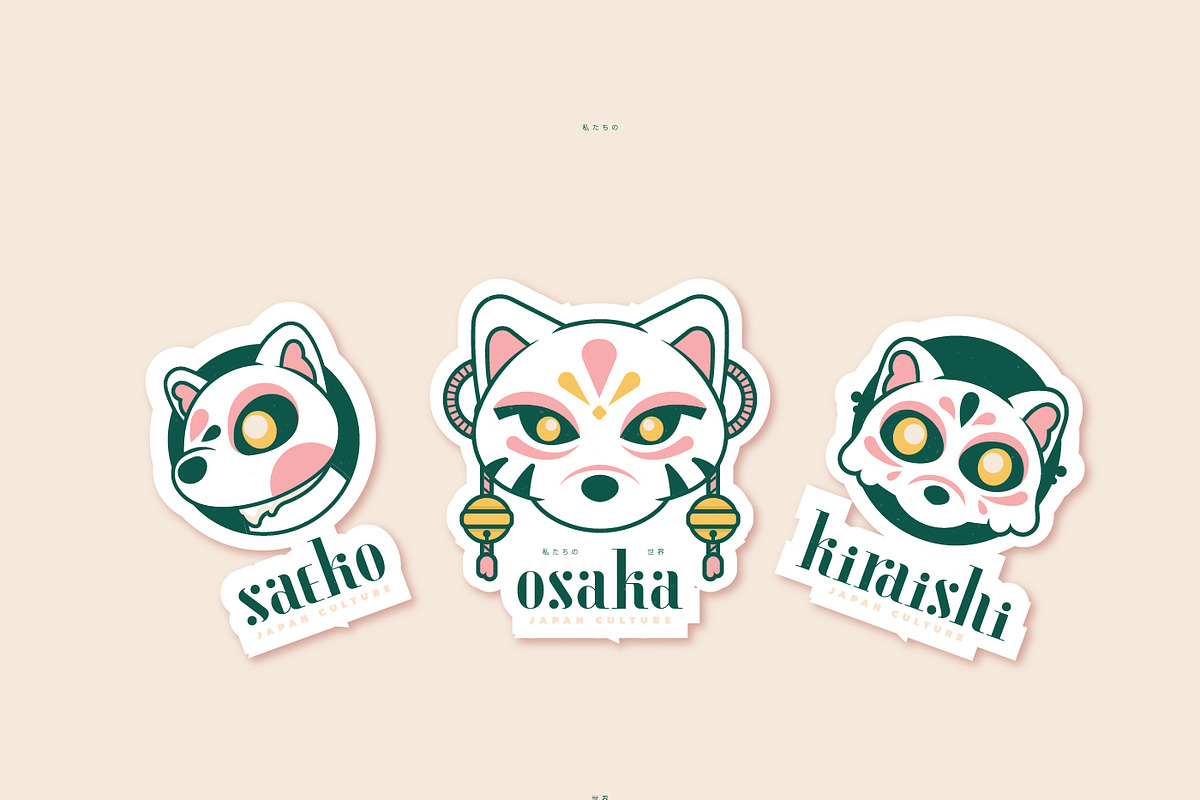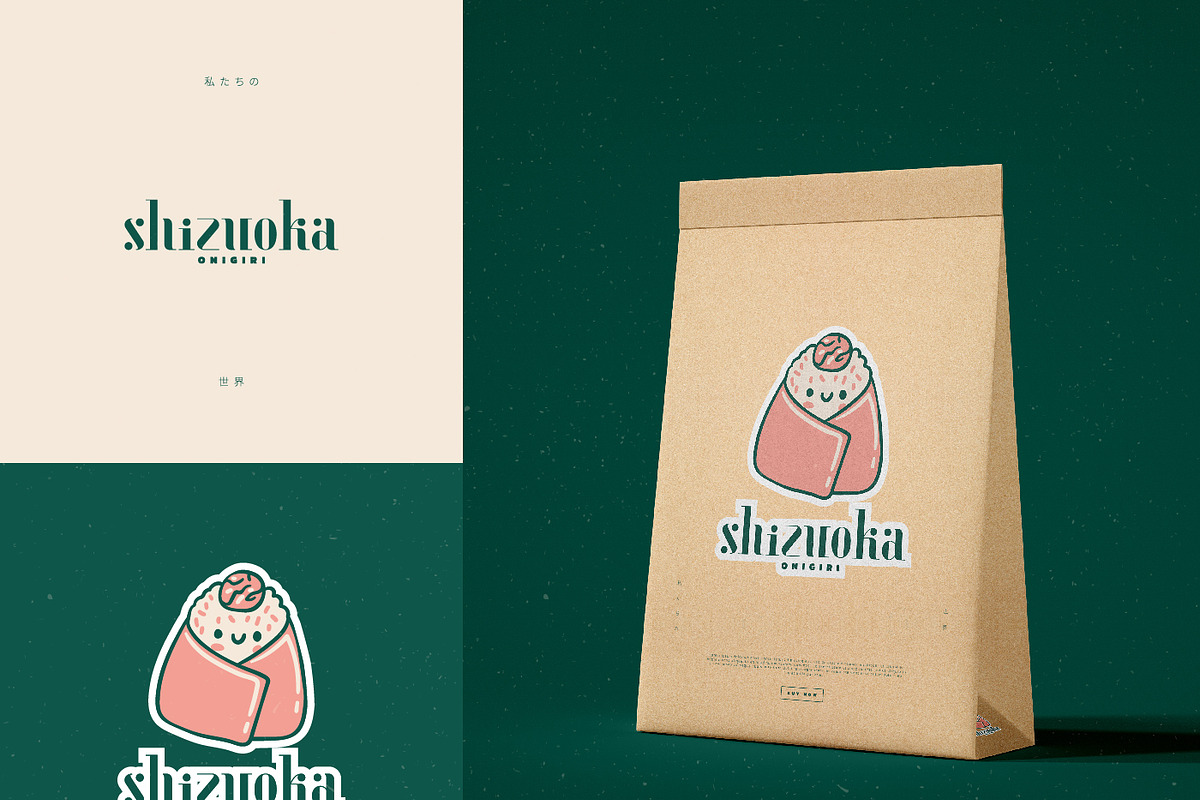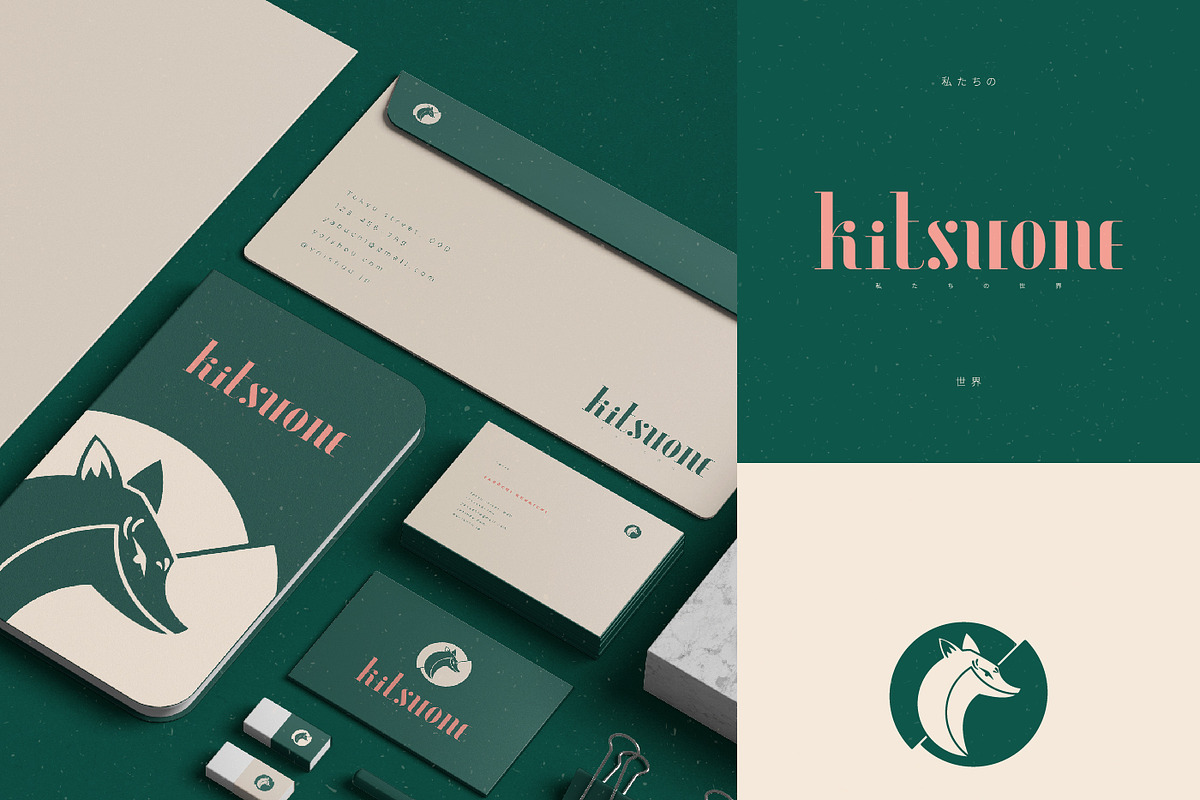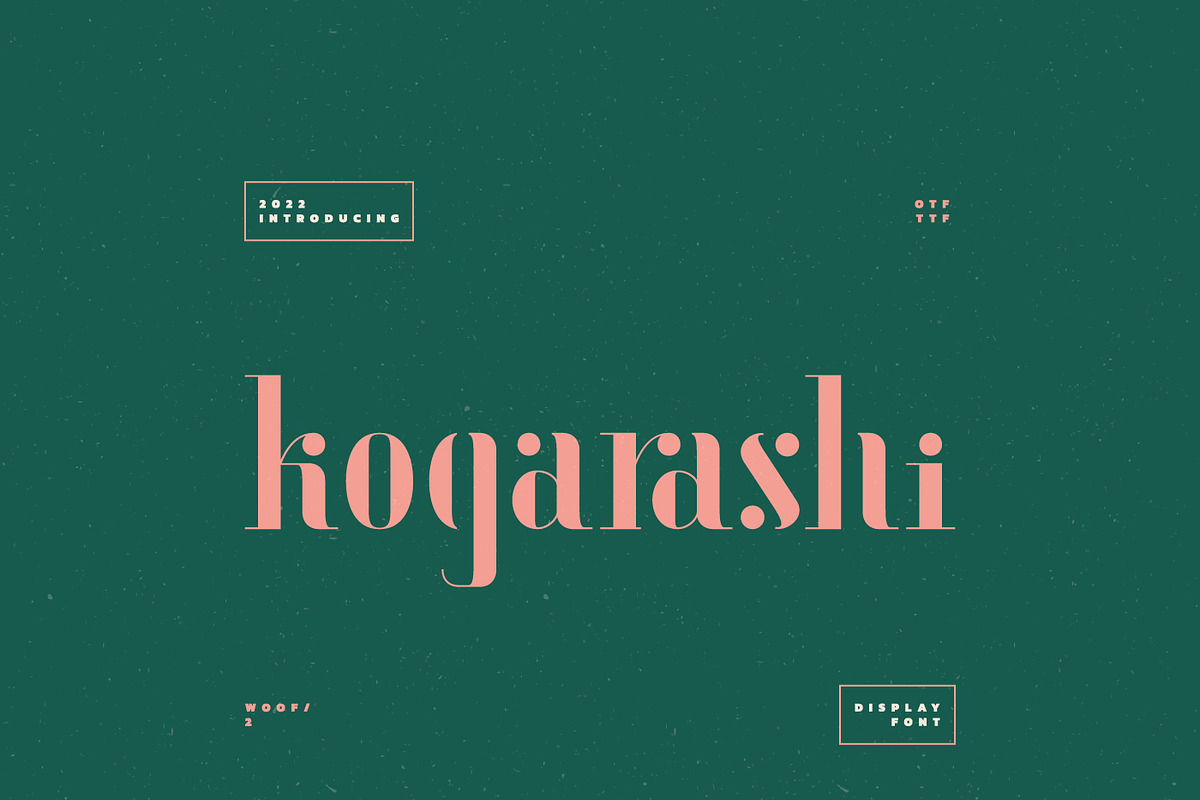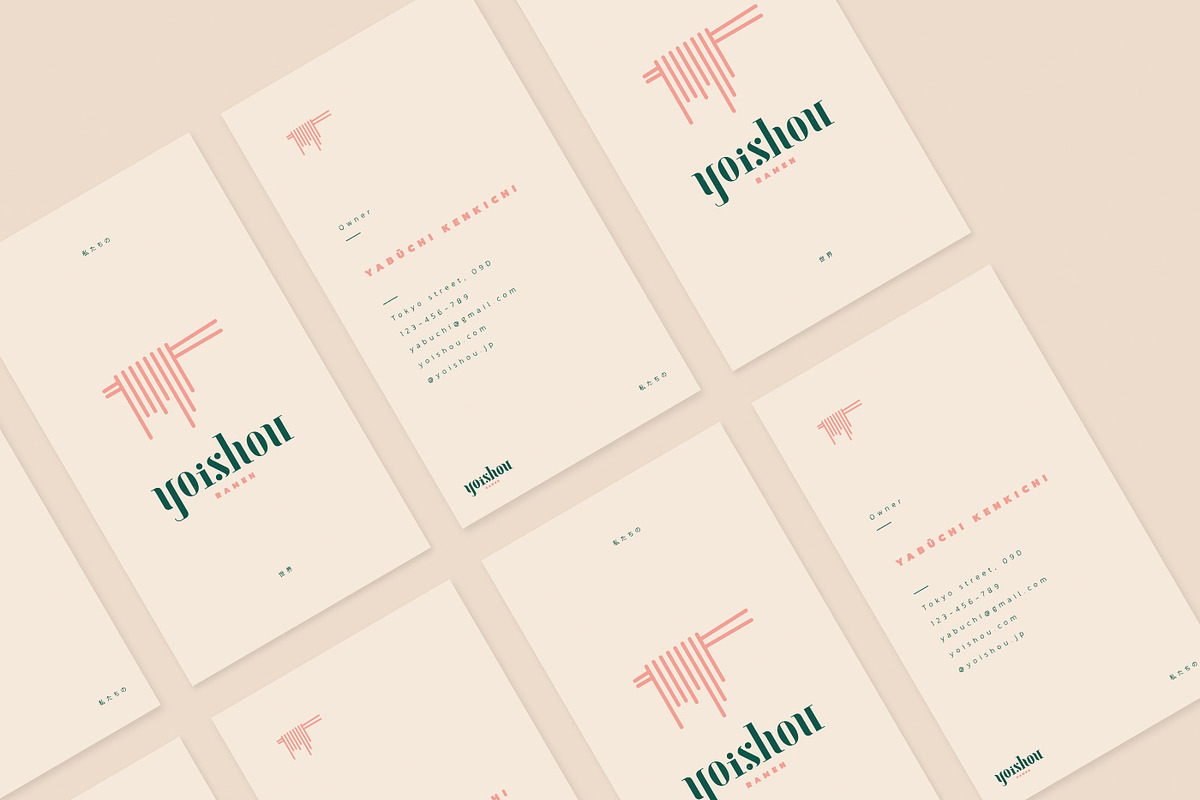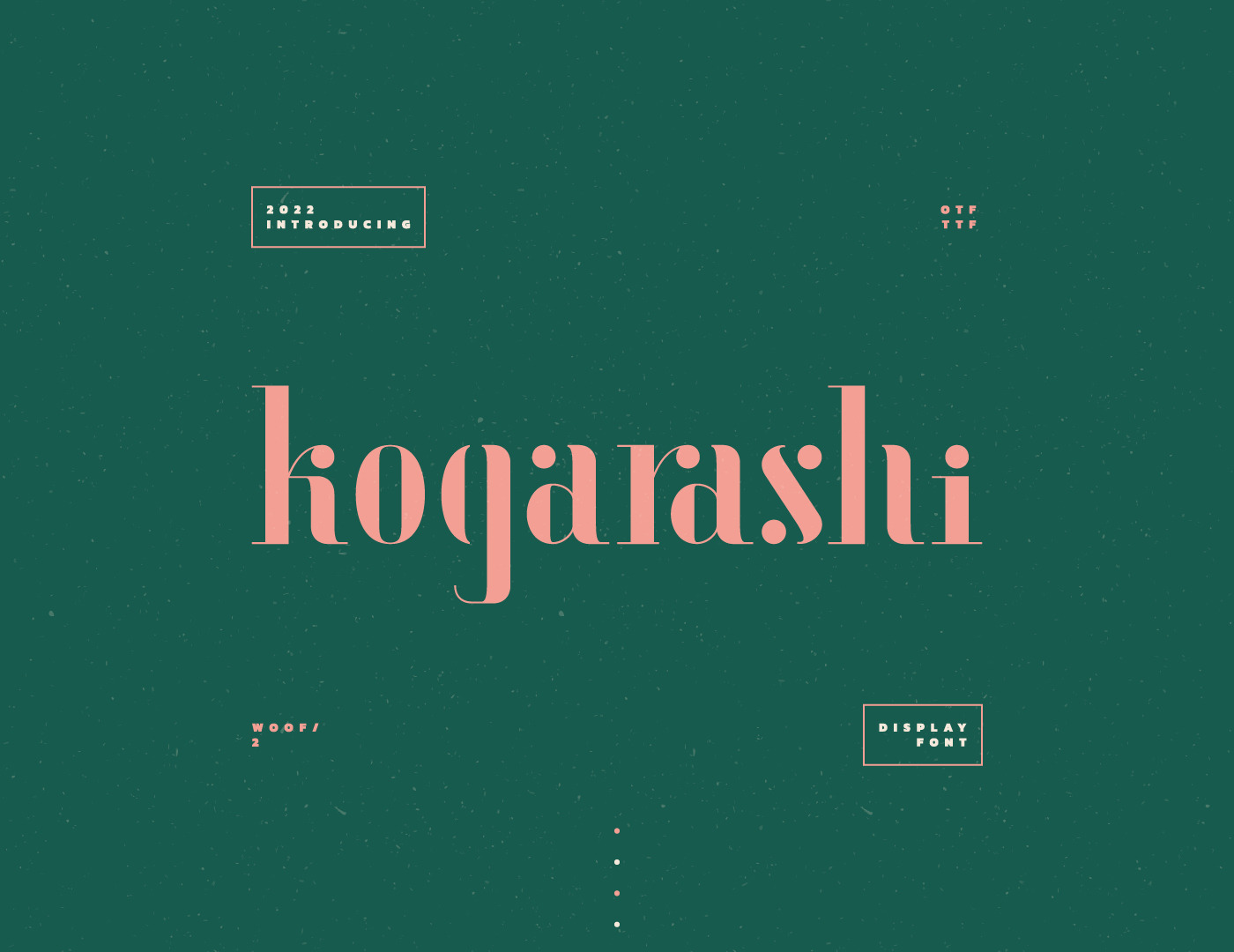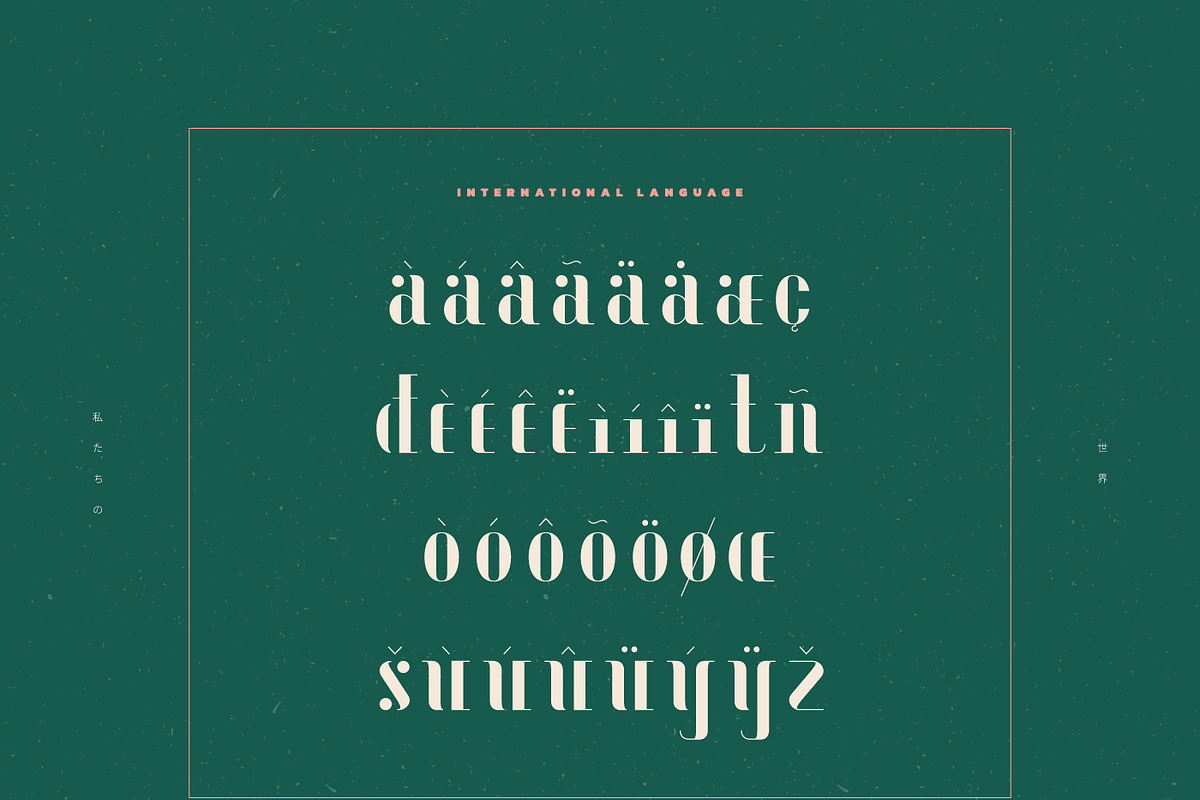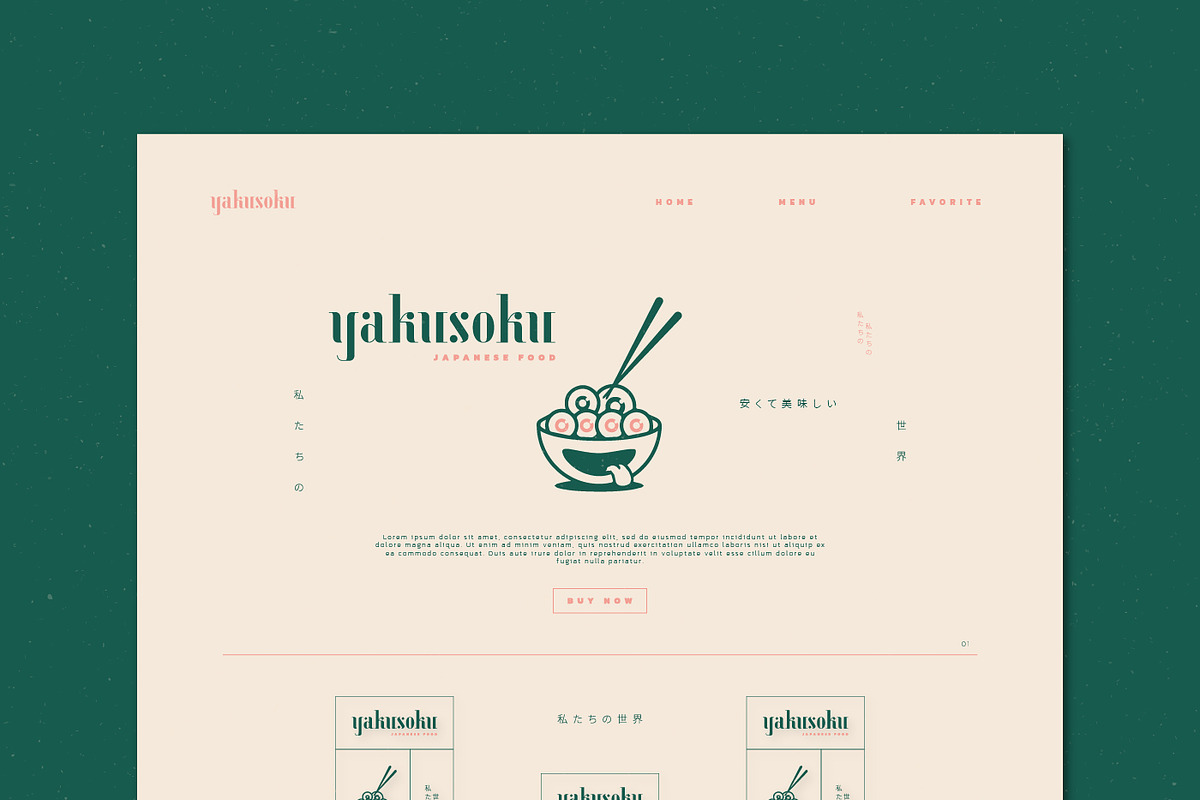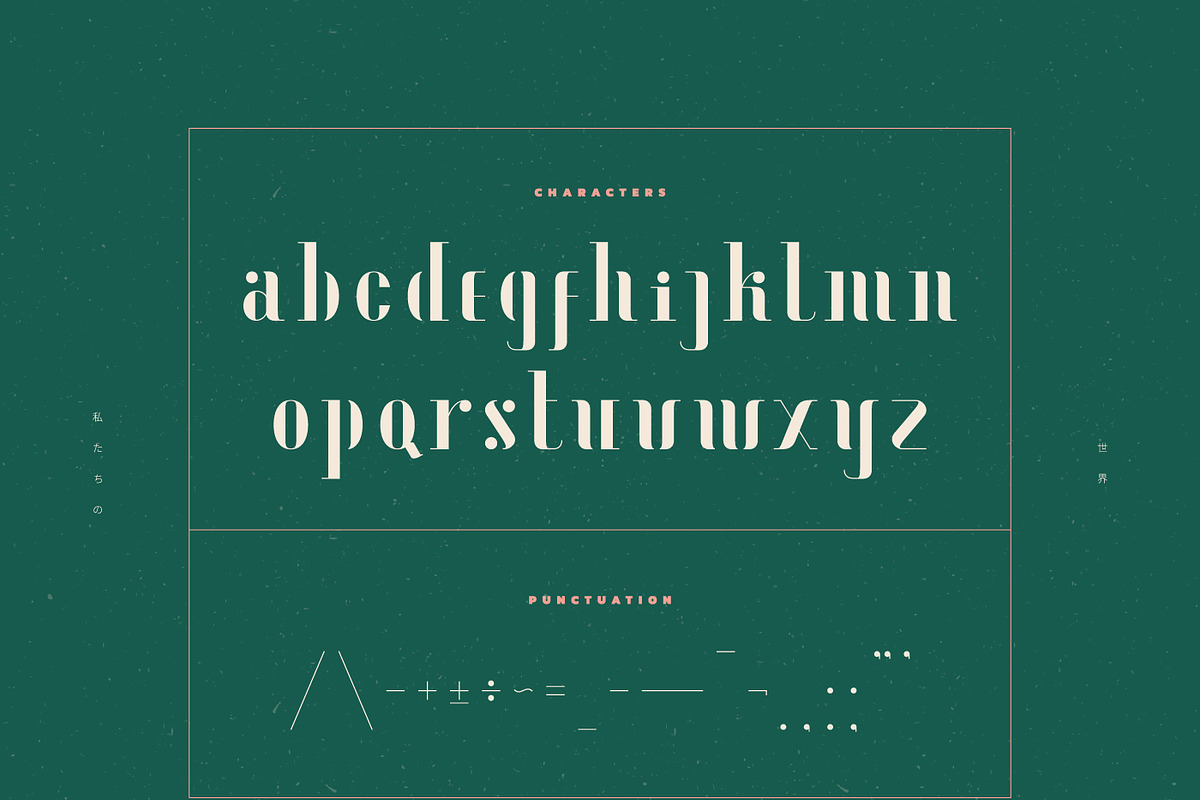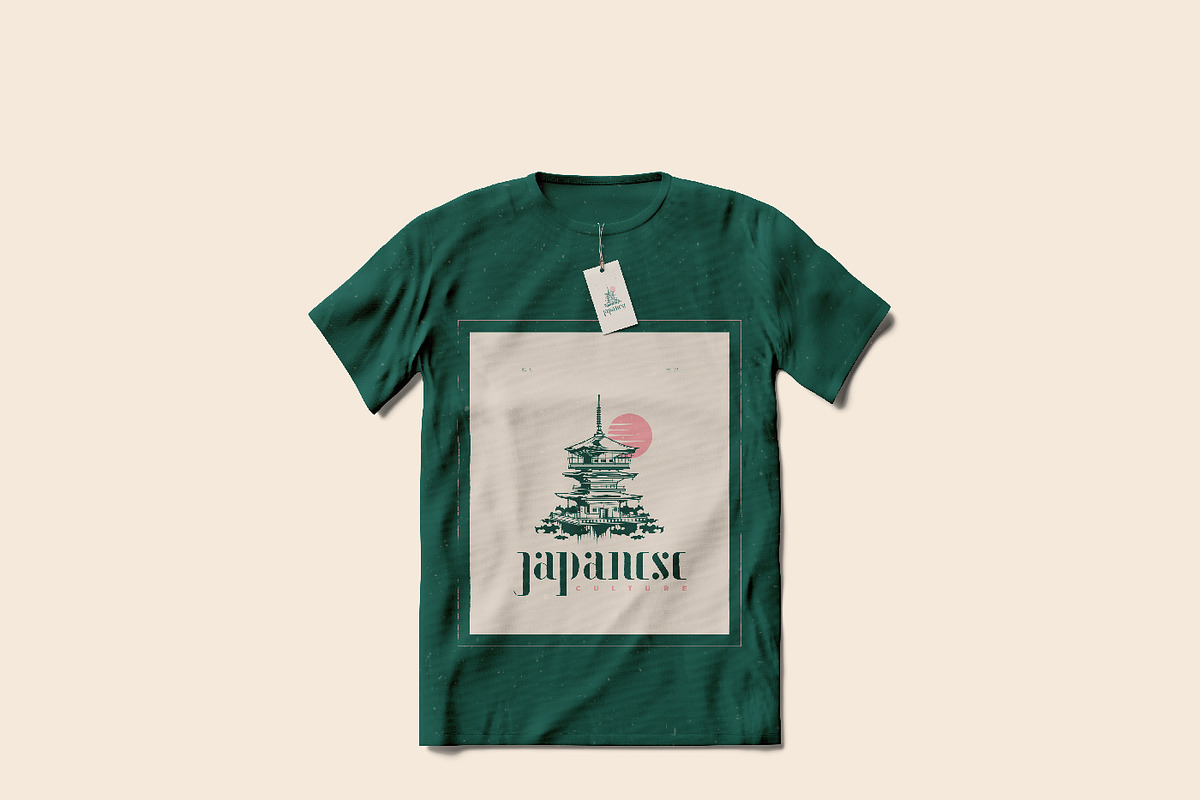
Kogarashi Display Font
Introducing our new Display Font Design collection, made in 2022 named Kogarashi. Kogarashi is creatively made for logos, branding projects, invitations, wedding projects, florist, and other design. Kogarashi means "winter season wind sign which flied the last leaves from the tree" from Japanese words. Representing it, Kogarashi has natural, flowy detail, and strong vibes.
- OpenType Features (Stylistic Set)